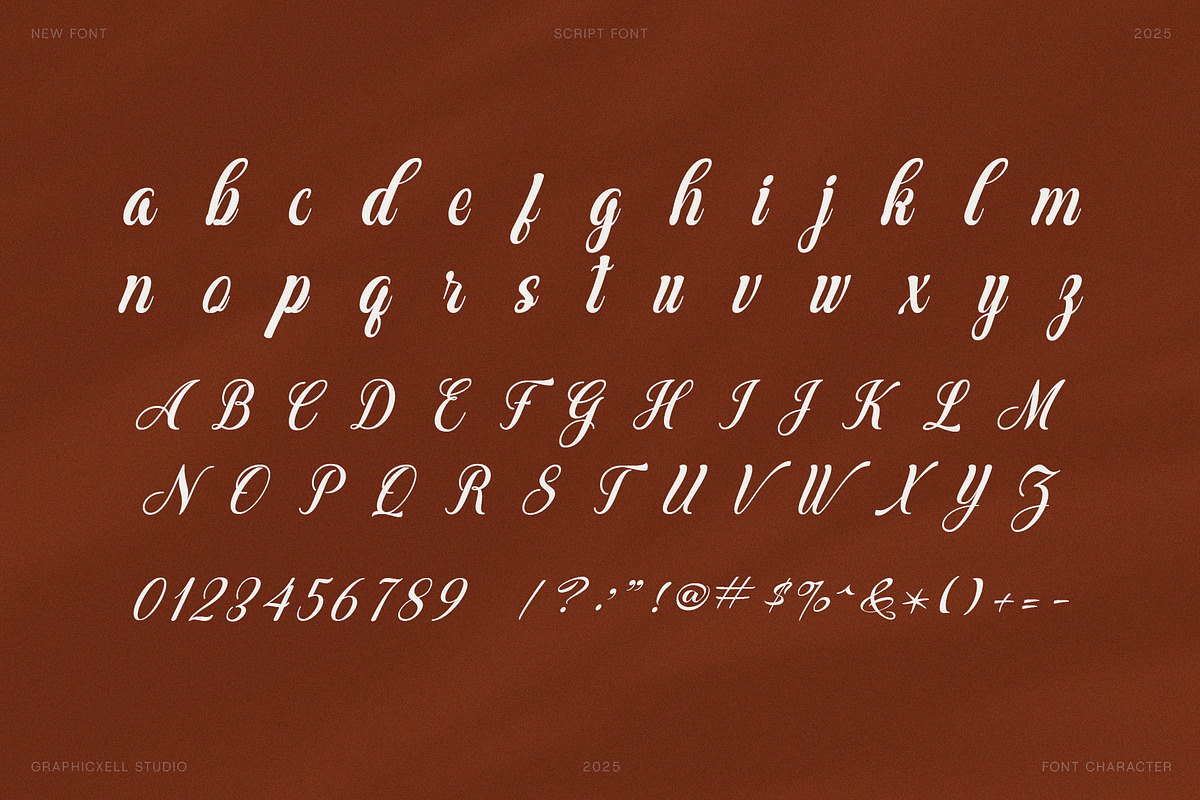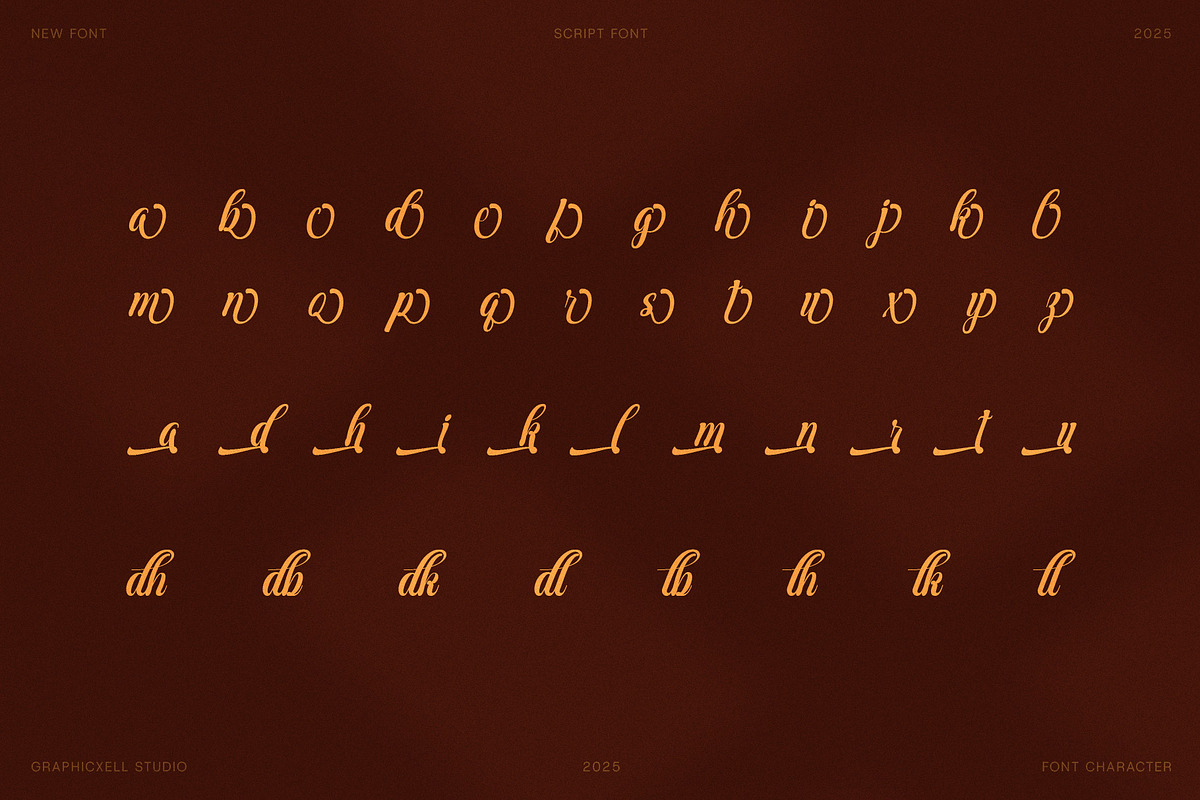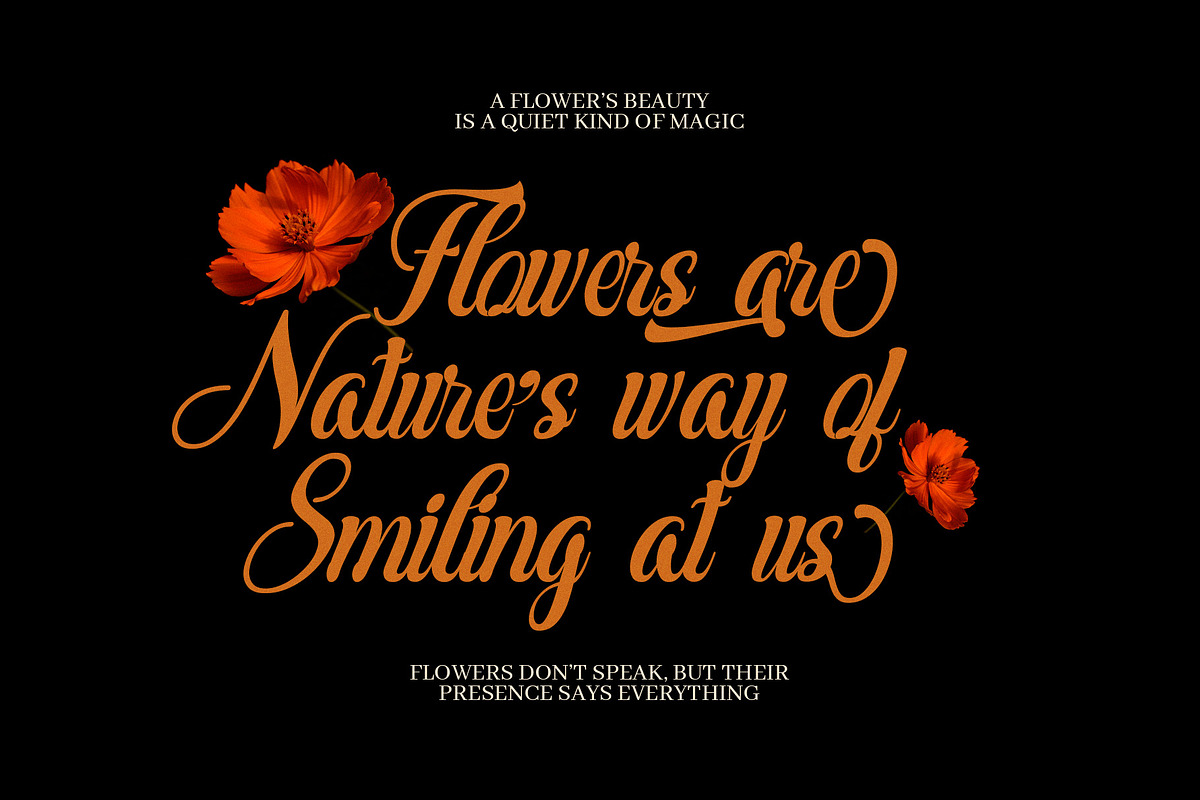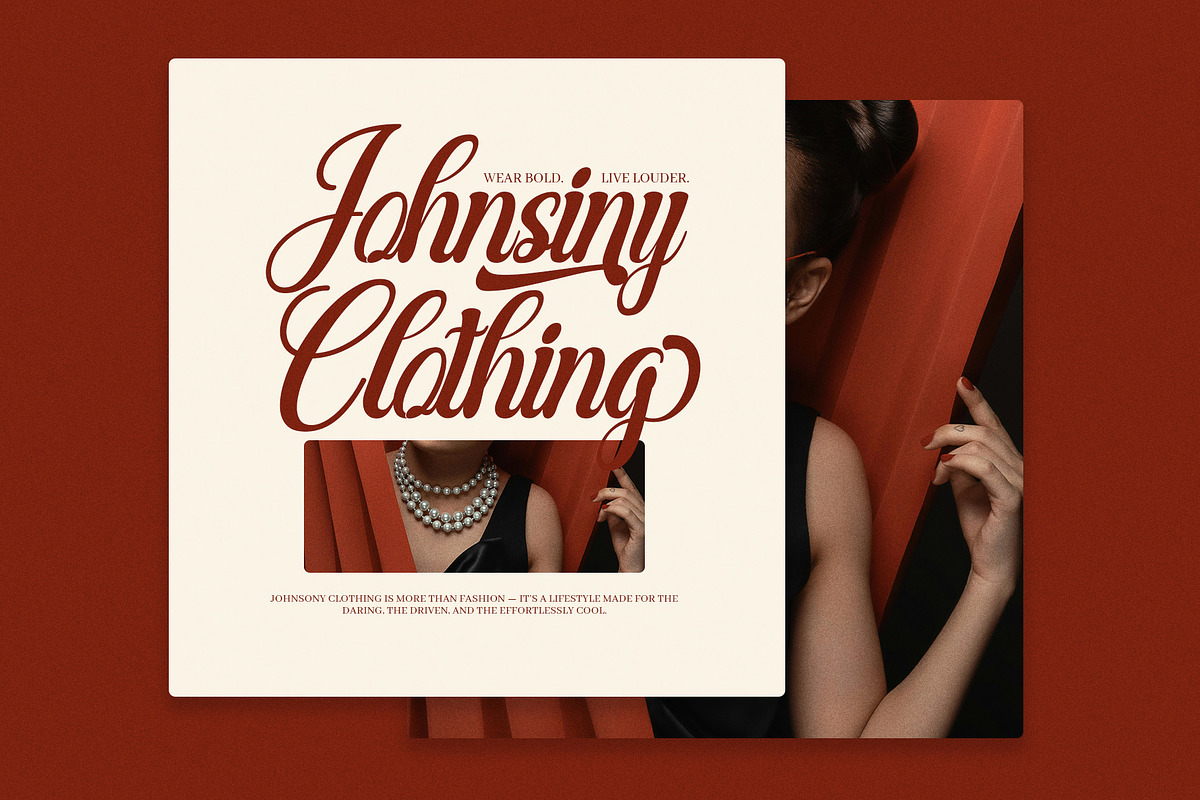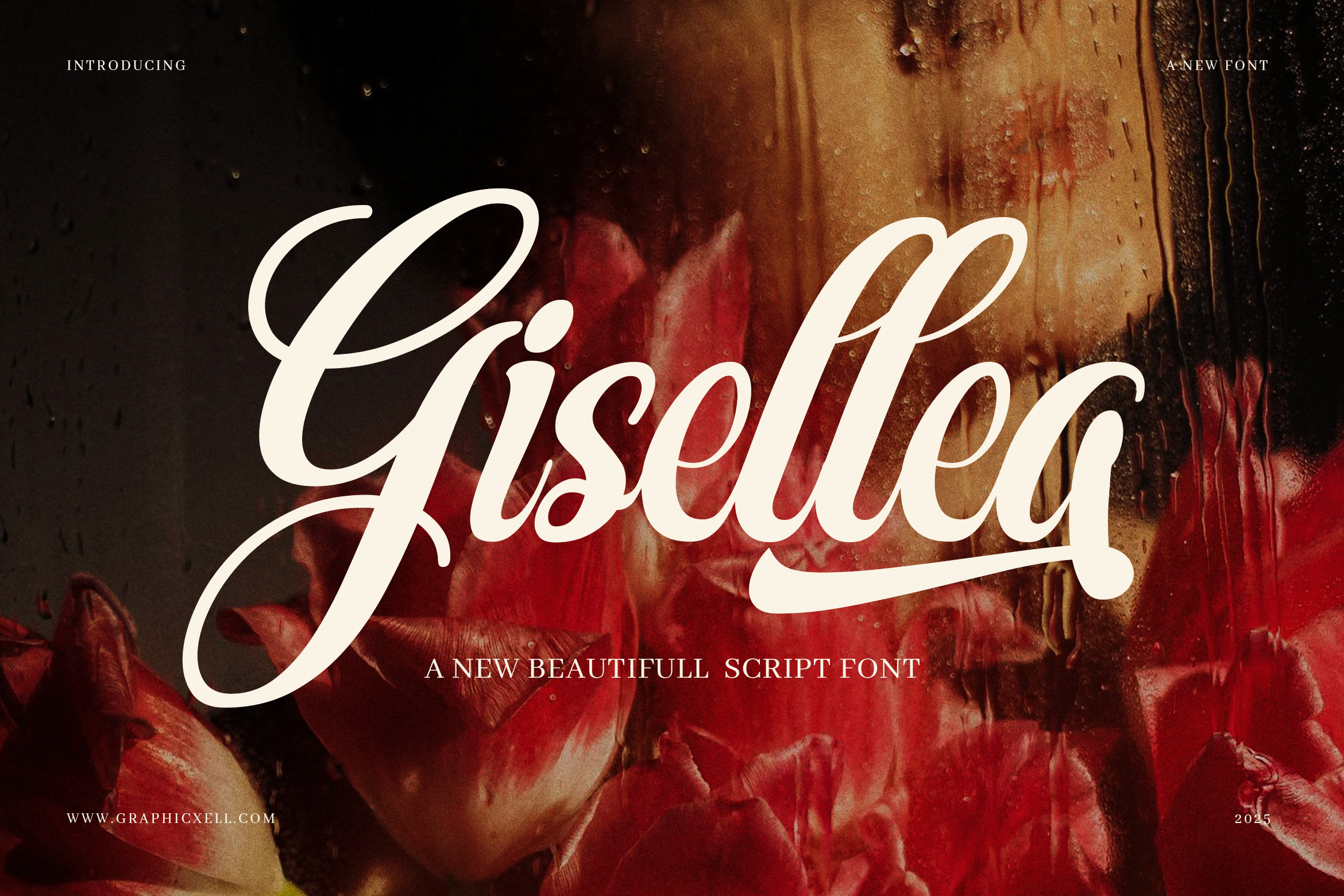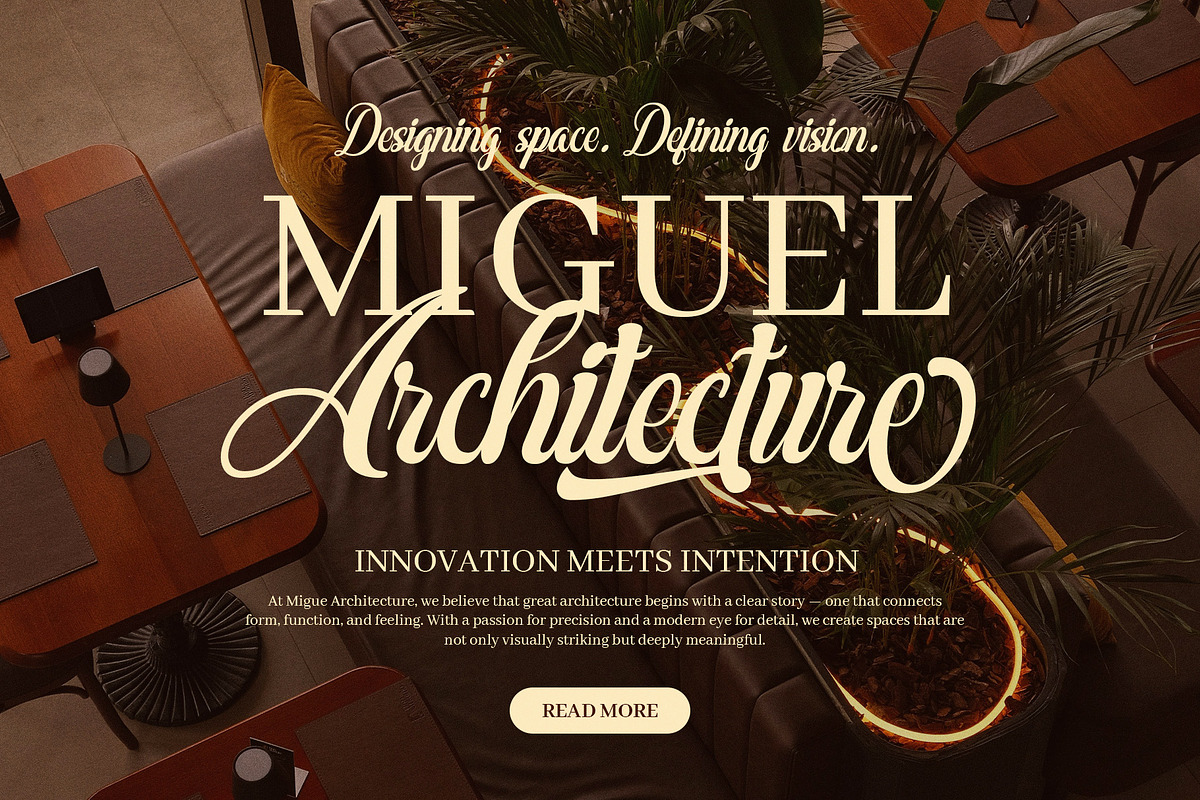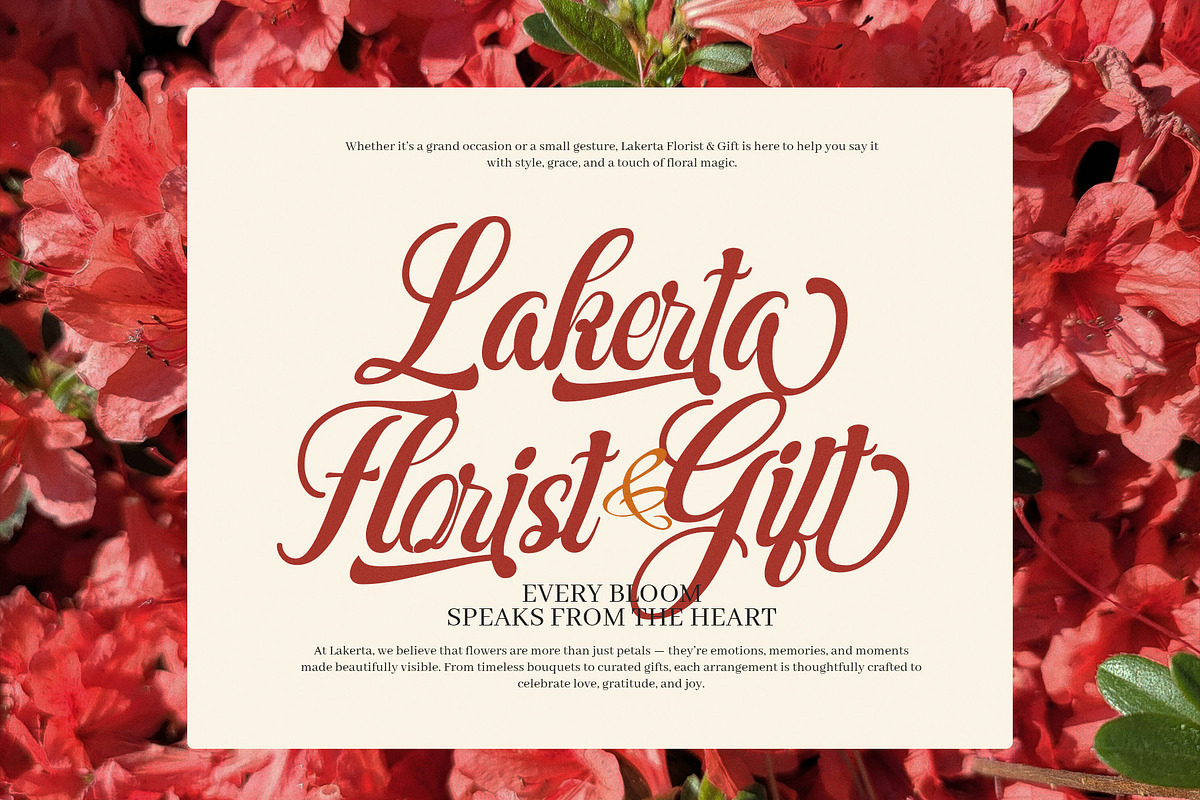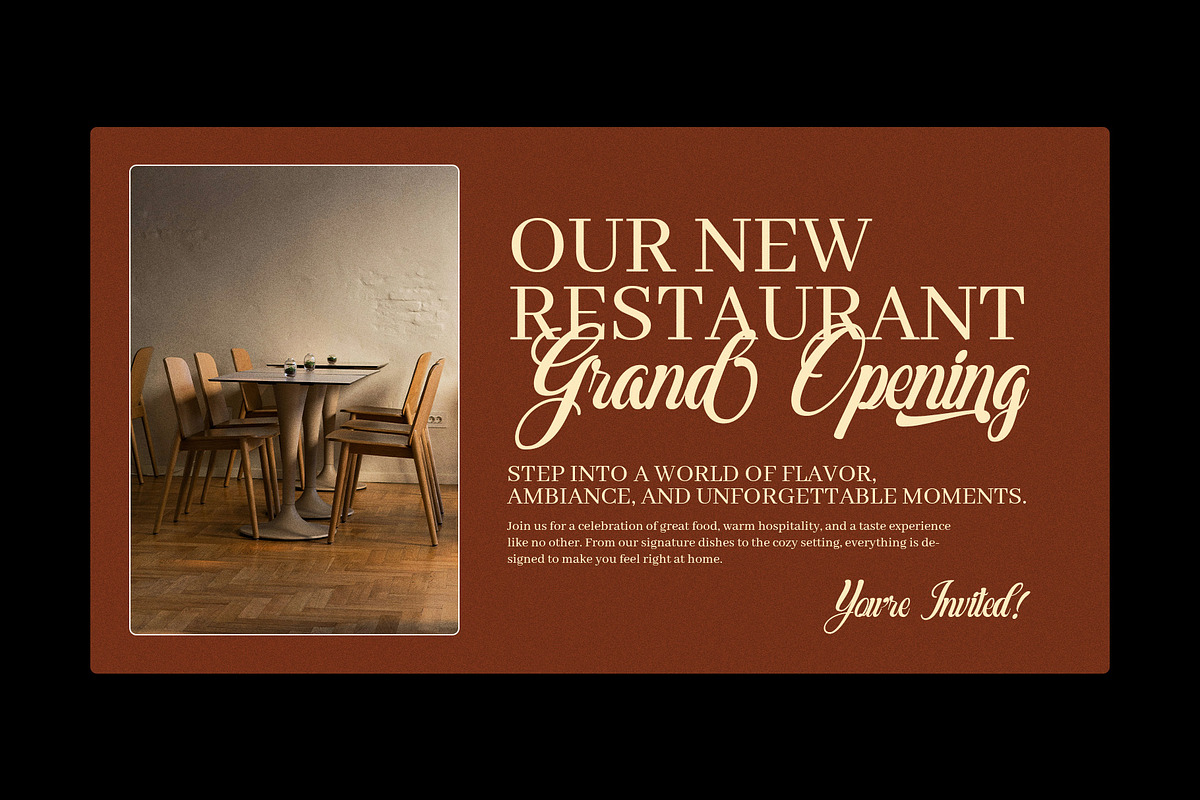
Gisellea Elegant Script Font
Gisellea is an elegant script font created to express warmth, romance, and gentle beauty. It features smooth strokes, rounded curves, and balanced letterforms that feel soft and inviting. Because of its natural flow, Gisellea brings a calm and emotional touch to every design.
This script font blends modern handwritten style with floral elegance. As a result, it works beautifully for flower shops, wedding designs, and lifestyle branding. Moreover, each letter connects smoothly, allowing words to feel personal and expressive. The subtle swashes add charm, while the clean structure keeps the text easy to read.
Gisellea is ideal for designers who want elegance without complexity. Therefore, it fits perfectly in logos, product packaging, greeting cards, and café branding. In addition, it performs well in quotes, invitations, and social media visuals where emotion matters.
Why choose Gisellea Script Font?
Soft handwritten style with smooth flow
Romantic curves with gentle swashes
Clear readability with elegant character
Perfect for floral, wedding, and lifestyle design
Suitable for print and digital projects
Furthermore, Gisellea adapts easily to many creative themes. Whether you design for florists, restaurants, fashion labels, or home décor brands, this font adds warmth and personality. Because of its consistent spacing, it also pairs well with serif and sans-serif fonts.
Gisellea does more than decorate words. Instead, it helps communicate feeling and story. Each stroke feels relaxed, while each curve feels intentional. Consequently, your designs appear friendly, stylish, and memorable.
In conclusion, Gisellea is a script font designed for creators who value softness and elegance. Use it to enhance your designs and deliver beauty with a natural, timeless feel.